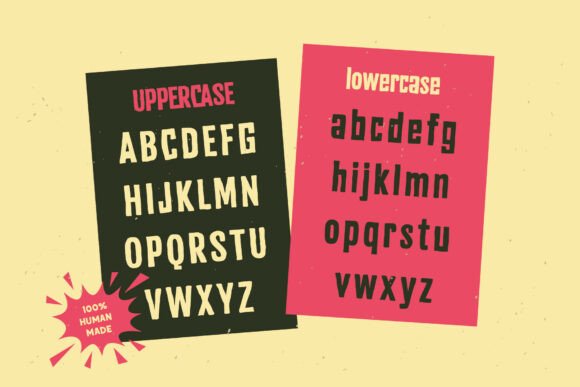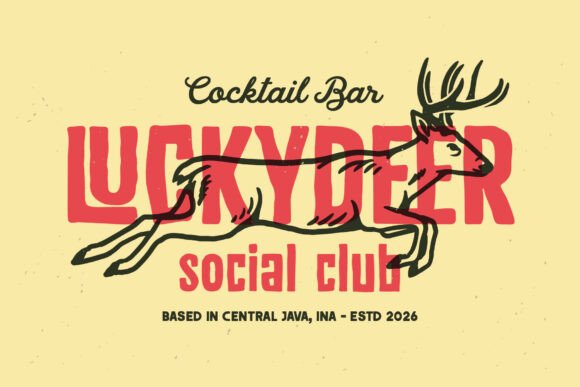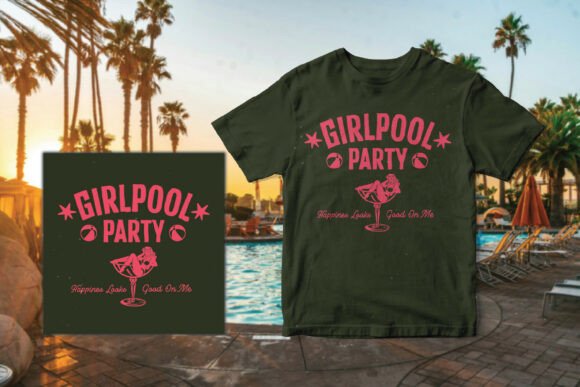
Introduction to Miraty Font
Have you ever been working on a creative project, pouring your heart and soul into every detail, only to feel like something’s missing? Maybe it’s the perfect font that gives your design that extra oomph. That’s exactly what the Miraty Font does. Inspired by expressive hand-drawn strokes, this unique sans-serif font offers a refreshing change from the ultra-minimalist styles that dominate the design world.
What sets Miraty apart is its organic, human, and expressive aesthetic. The imperfect strokes give this typeface a natural personality that feels authentic and full of character. Whether you’re working on branding, logos, packaging, posters, apparel design, or vintage-style projects, Miraty Font is the perfect design resource to elevate your creative project.
- Unique characteristics include its elegant and modern design, perfect for use in logos, branding, and marketing materials.
Honest Review: Miraty Font
As a designer, I’m always on the lookout for high-quality design resources to enhance my creative projects. Recently, I stumbled upon the Miraty Font, and I’m excited to share my honest review with you.
What works well: ✨ The Miraty Font is available for free download, which is a huge plus for designers on a budget. The font also features a transparent background, making it easy to use in various design scenarios. The overall design is clean and modern, making it perfect for creative projects that require a touch of sophistication.
What doesn’t work well: ⚠️ While the Miraty Font is free, it’s not as extensive as some other font libraries. The character set is limited, and it may not be suitable for projects that require a wide range of characters or languages.
Overall impression: I think the Miraty Font is a solid addition to any designer’s toolkit. While it may have its limitations, it’s a high-quality design resource that’s perfect for creative projects that require a touch of elegance. If you’re looking for a free font to enhance your design, the Miraty Font is definitely worth checking out.
- Clean and modern design
- Limited character set
Miraty Font is ideal for use in creative projects, such as graphic design, digital art, and typography. It’s also great for use in business projects, such as brochures, flyers, and presentations. With its high-quality design and transparent background, Miraty Font is a versatile and reliable design resource that can be used in a variety of contexts.
Ostrich Sans is a modern sans-serif font that is ideal for digital design, including websites, mobile apps, and social media platforms. It features a clean and minimalist design, making it perfect for creating a high-quality design resource with a transparent background. When to use: For creative projects that require a clean and modern look.
Comparison to Miraty Font: Ostrich Sans has a more geometric and futuristic feel compared to Miraty Font’s more organic and elegant design. It is available for free download and is a great alternative for designers who want a high-quality sans-serif font.